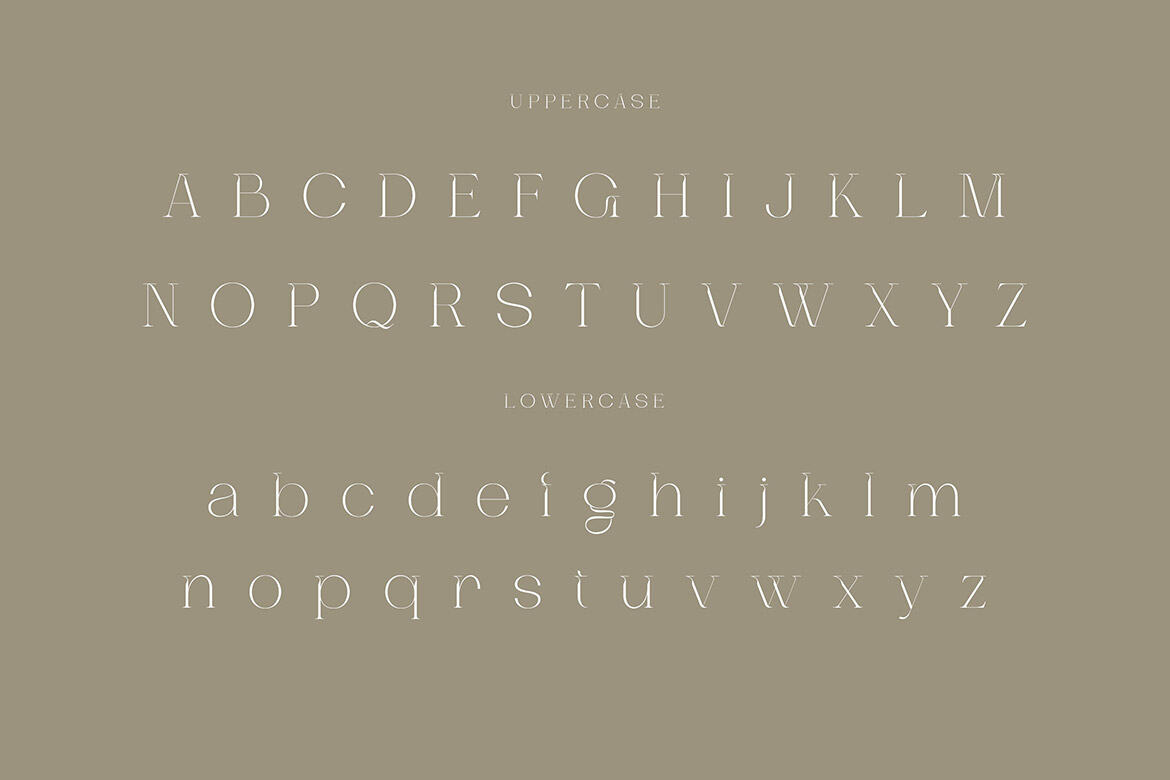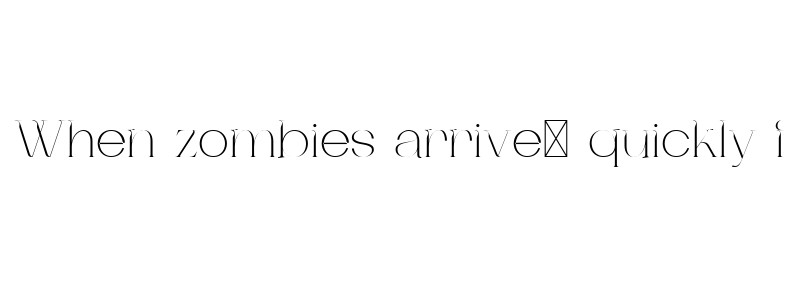
Dagstam - FREE Serif Font
Dagstam
Trendy, classy & modern style serif font for your fancy projects. Elegant, fashion and classic style on Dagstam font will be great for any branding project. Enjoy this FREE version and maybe check also premium full version :)